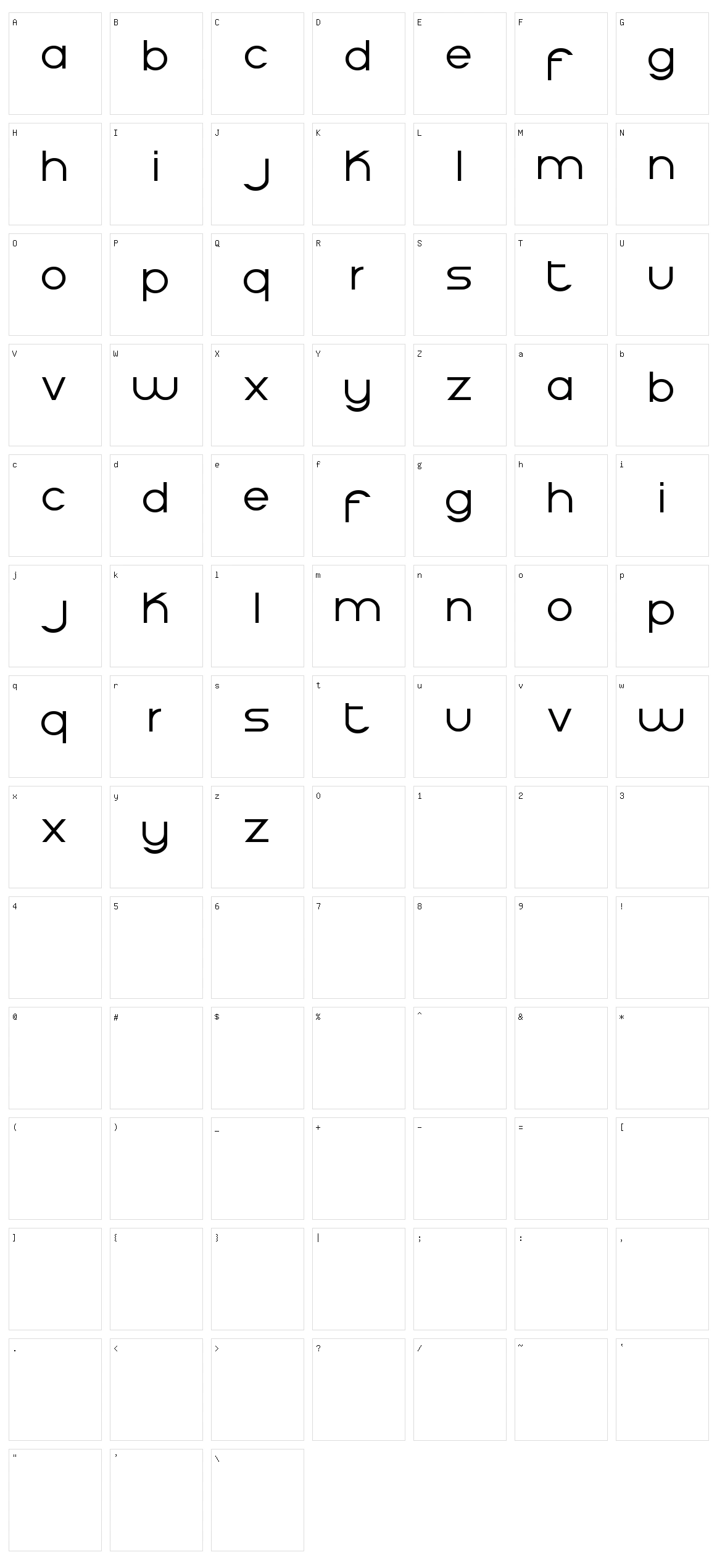
The free font Moiser is carefully designed by Qbotype Fonts, showcasing a thoughtful balance of creativity and usability and falls under the Sans serif font style. When you download the ZIP file, it contains only 6.17 KB of font files, making it lightweight and quick to download. Please review the license details below to understand permitted usage and distribution rights. If license information is not available, we recommend using this font for personal projects only or contacting the author directly for commercial usage permissions.